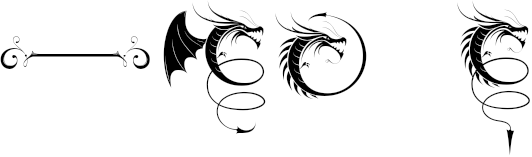
Ariesta
ariesta ornament
Ariesta Black
Ariesta
Ariesta, this is a charming tattoo font, looks old-fashioned, but still striking, this design will also give a different feel to those of you who use it, there are several ornaments that you can use in it, and you can also create a simple logo or brand by using this font, looks very challenging and confident,
Ariesta